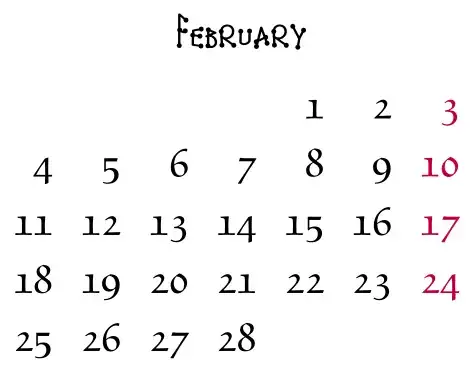
Here’s a working example with combofont:
URW’s version of Schneidler Medieval has its lowercase 1234567890 in a
separate, small caps font. This is far less inconvenient on \today\
than it was when I first acquired the type, since we now have
combofont.
\textit{There are no italic small caps, but the result is still
pleasing, because the italic 1234567890 seem to be a hybrid of
uppercase and lowercase figures.}
Because I’m not clever enough to combine my definition of schneidler-regular with an invocation of fontspec to select the italic, I defined schneidler-italic using the same font as both recipient and donor of glyphs. There may well be a better way of proceeding.
Standard ligatures were broken until I added \combodefaultfeat.
A Problem
The above worked because lowercase figures are the default in SchneidlerMedSC-Med.otf. But it’s not clear how to procede when lowercase figures exist in but are not the default of the donor font. Here, for instance, is a deliberately tasteless attempt to combine Punk Nova with Neo Euler:
I’d have expected +onum to produce Neo Euler’s lowercase figures, but it didn’t. By playing with the luaotfload manual, I found this solution (there may be better ones):